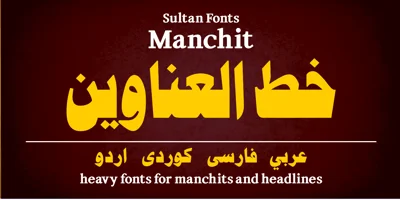
SF Manchit Font
SF Manchit Font is perfect for modern newspaper headlines, editorial magazine layouts, contemporary news websites, digital journalism platforms, media company branding, press release designs, broadcasting station identities, and professional news communications.
SF Manchit Font is exciting because it captures the authoritative clarity and journalistic precision of modern media through its sharp character design that embodies the trustworthy reliability of professional news reporting and the dynamic energy of contemporary information delivery. Its editorial styling and news appeal make it the perfect choice for brands that want to communicate credibility, immediacy, and the essential power of accurate information dissemination.
SF Manchit Font family includes multiple news-focused variations: SF Manchit Light, SF Manchit Regular, SF Manchit Medium, SF Manchit Bold, SF Manchit Condensed, and SF Manchit Extended, along with editorial symbols and news decorative elements, providing designers with comprehensive tools for creating authentic journalism and media-themed brand experiences.
When exploring editorial typography solutions, SF Manchit Font emerges as the ultimate choice for designers working on news and media projects that require genuine journalistic sophistication and editorial appeal. This authoritative typeface embodies the essence of professional journalism while offering the technical precision that contemporary media organizations and news platforms require. The font's news character and editorial authenticity create immediate connections with audiences who value reliable information and professional reporting.
Media professionals consistently turn to SF Manchit Font for projects requiring authentic editorial sophistication and powerful news appeal. Its expertly engineered letterforms feature journalism-inspired influences that work exceptionally well in both large-scale news headquarters displays and intimate digital news interface applications. The font's ability to convey authority and editorial excellence while maintaining perfect readability makes it invaluable for comprehensive identity systems in the journalism, broadcasting, and digital media sectors.
Whether you're developing news organization identities, creating media platform interfaces, or designing editorial presentation materials, SF Manchit Font delivers the authentic journalistic character and editorial appeal that resonates with audiences who trust professional news reporting and value accurate information. Its editorial significance and authoritative design ensure your projects communicate journalistic integrity while maintaining contemporary professional standards that attract modern news consumers and media industry professionals.